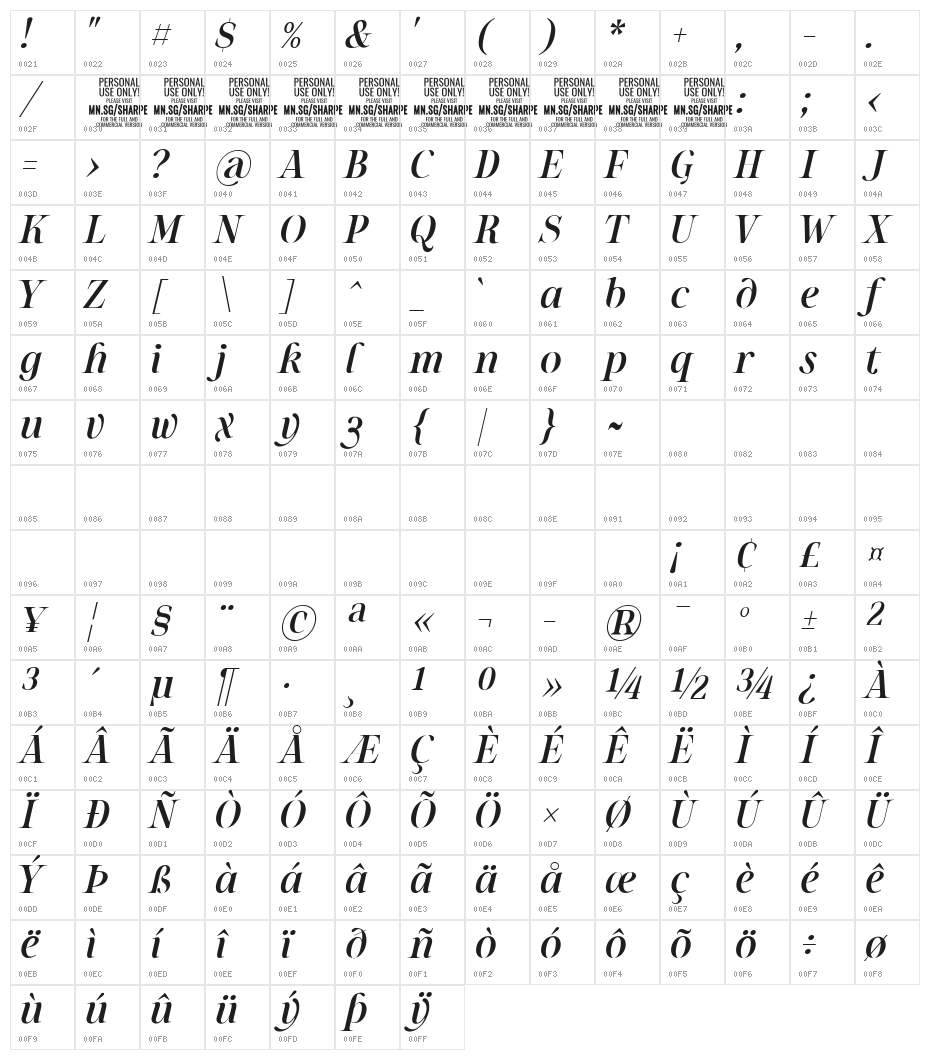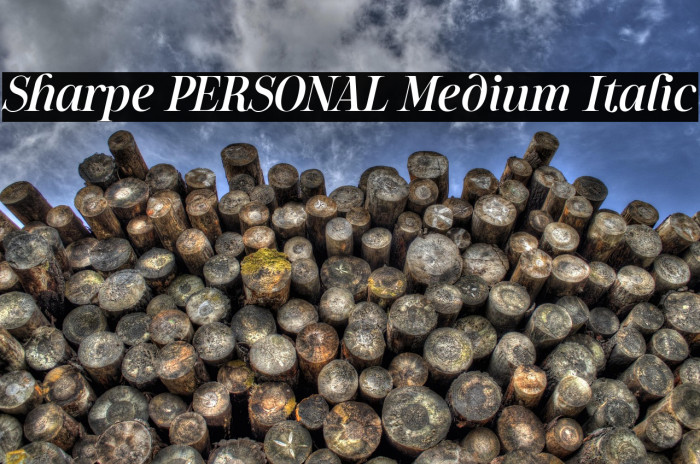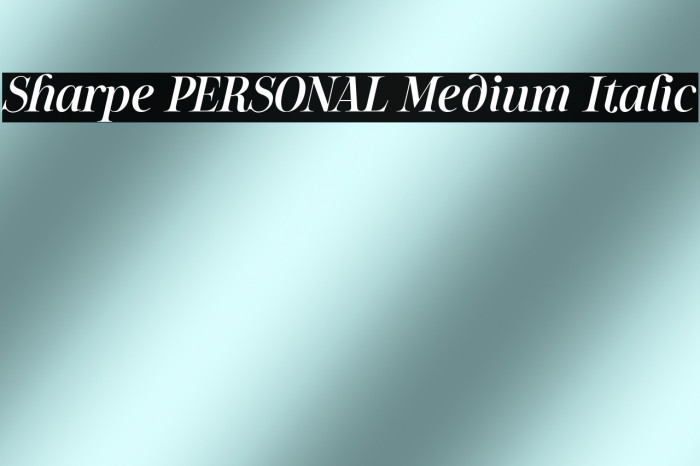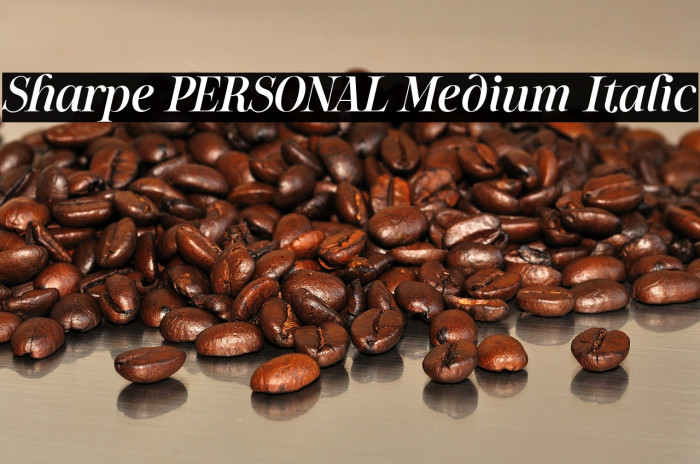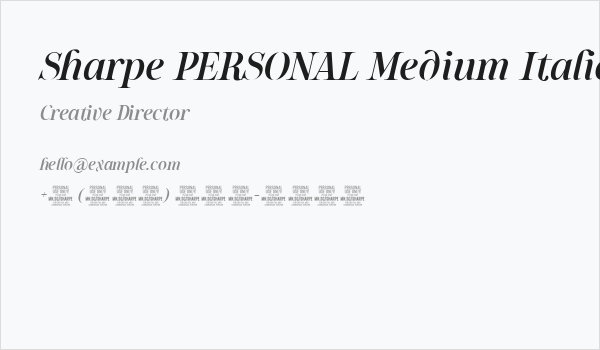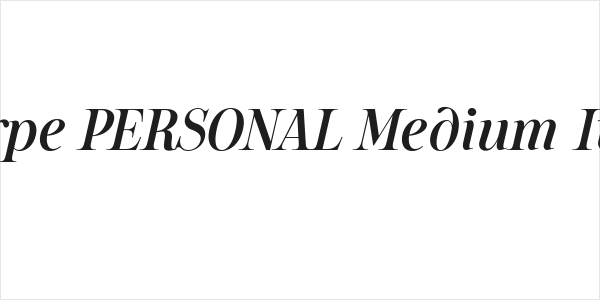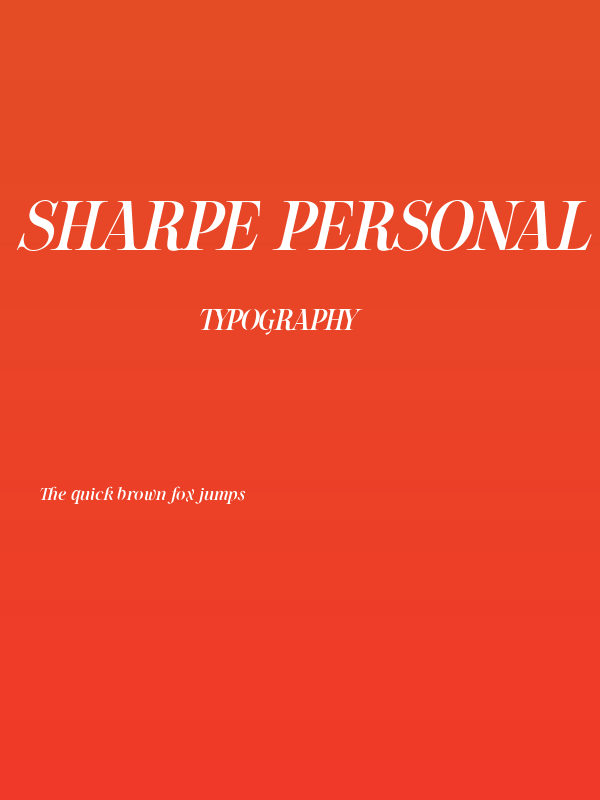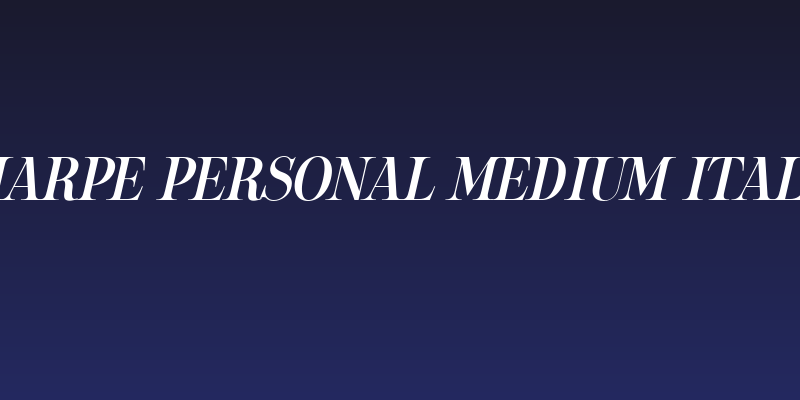
Sharpe PERSONAL Medium Italic Font
Sharpe PERSONAL Medium Italic Description
This font features a sophisticated and elegant design with a medium weight and italic style. The characters exhibit a classic serif structure with smooth curves and sharp serifs, providing a refined and formal appearance. The uppercase letters are bold and commanding, while the lowercase letters maintain a graceful flow. The numerals and special characters are consistent with the overall aesthetic, offering a cohesive look. The italic slant adds a dynamic and stylish touch, making it suitable for projects that require a touch of elegance and sophistication.
| Proposed Projects | Ideal for wedding invitations, luxury branding, editorial design, and formal event programs. |